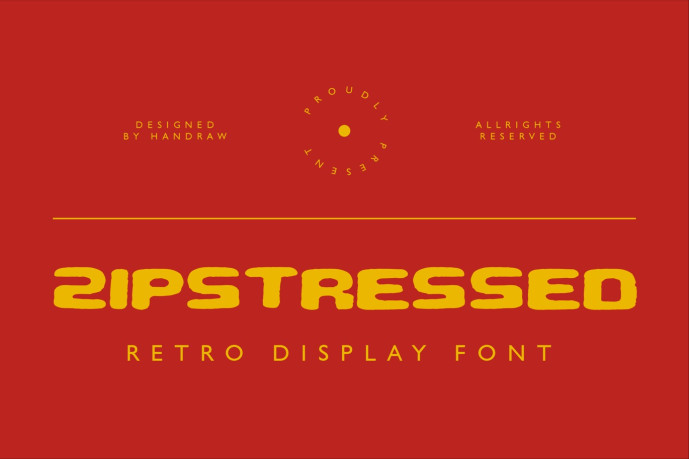
Zipstressed Font
Designer: Handraw
Zipstressed Font is a vintage-themed typeface that blends classic elements with a nostalgic feel. Inspired by the design styles of the past, this font exudes a strong retro vibe, giving a look that is not only visually appealing but also full of character.